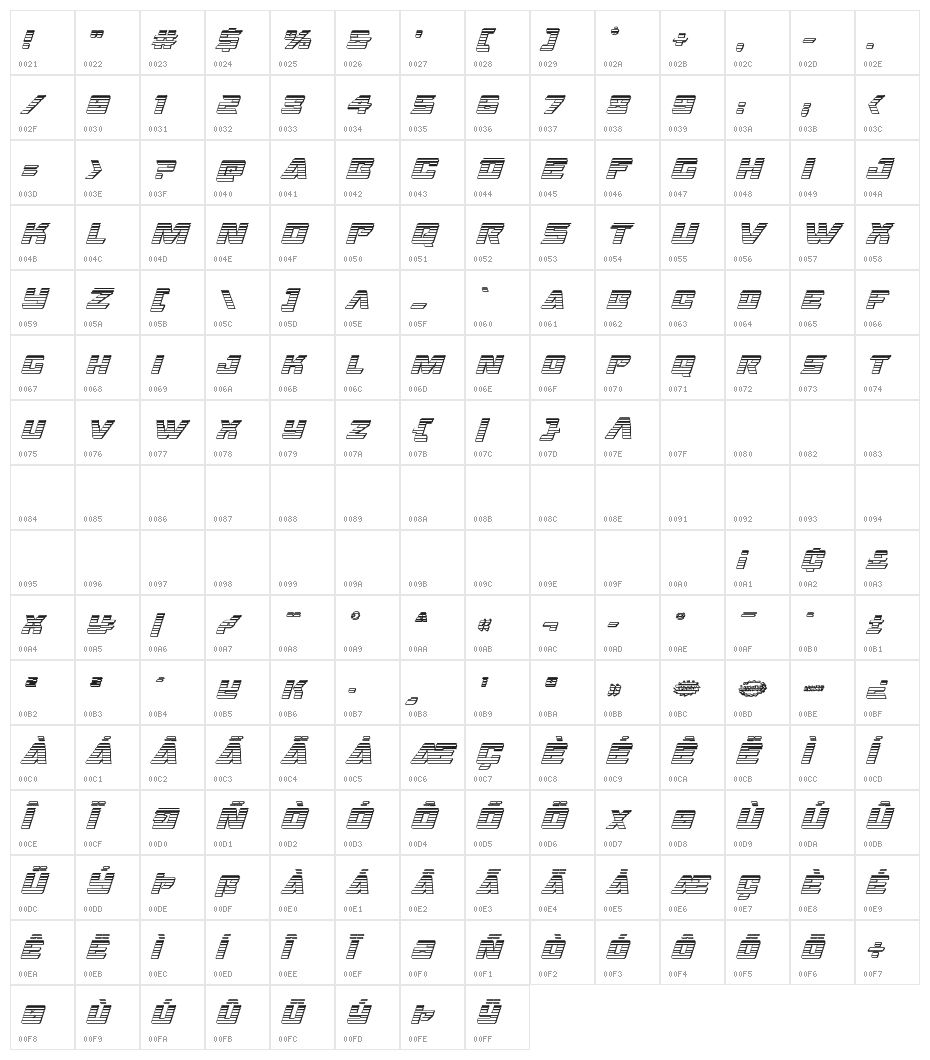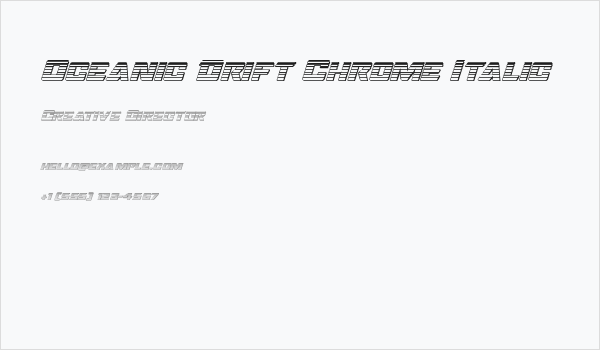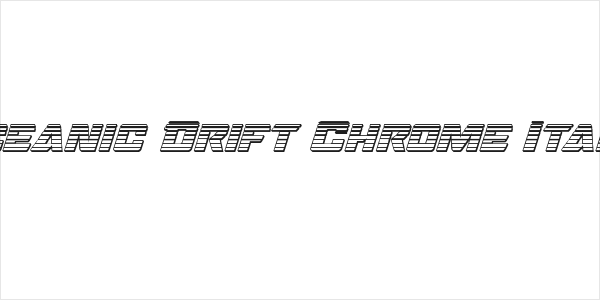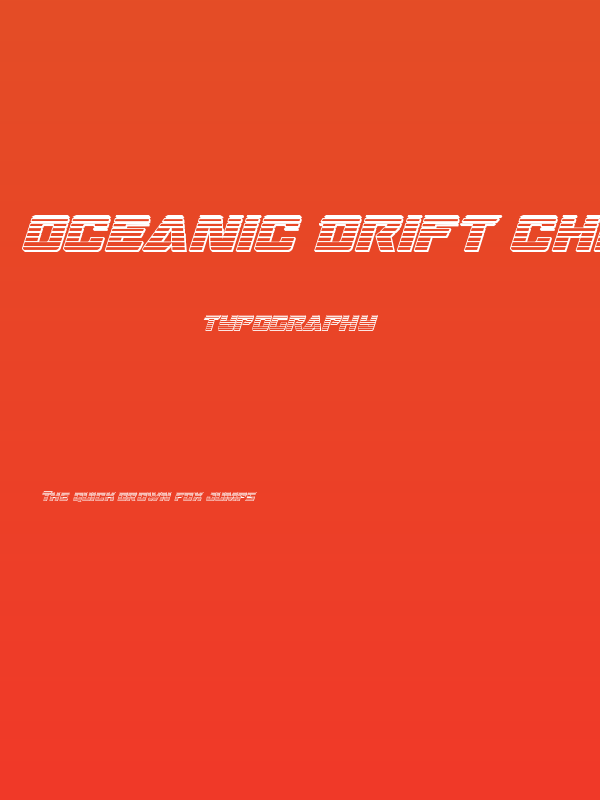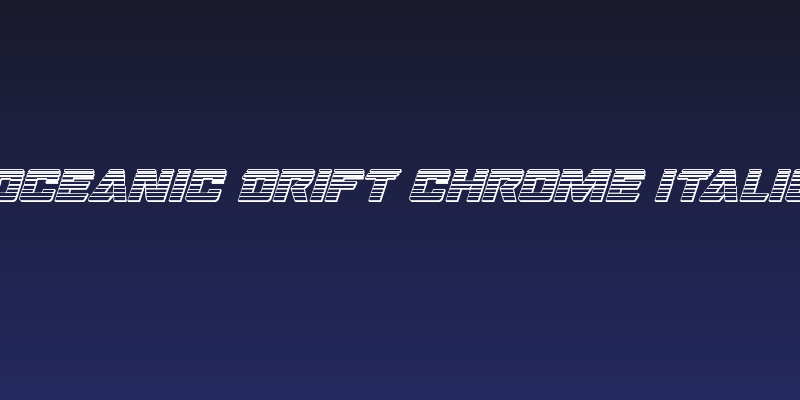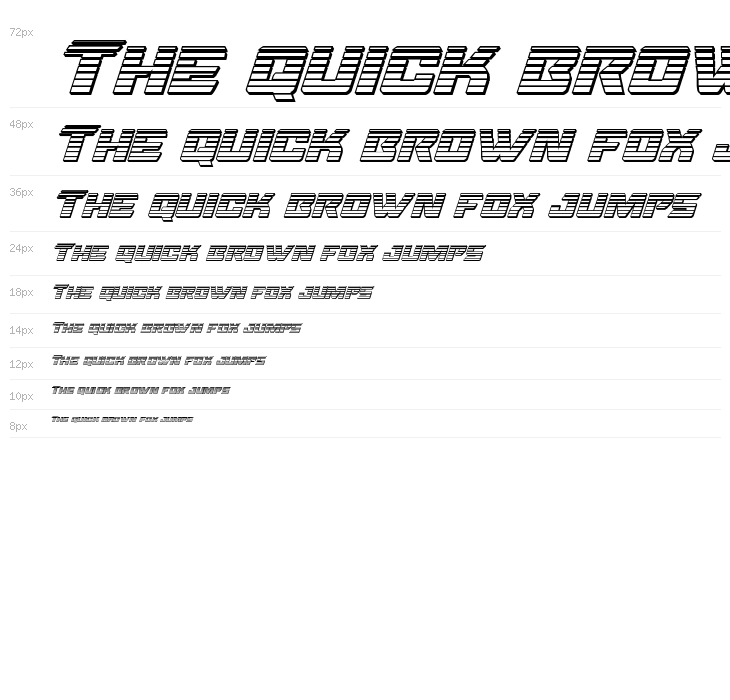
Oceanic Drift Chrome Italic Font
Oceanic Drift Chrome Italic Description
This font exhibits a bold, futuristic style with a distinct chrome-like appearance. The letters are outlined with multiple parallel lines, creating a sense of depth and movement. The italic slant adds a dynamic and forward-leaning aspect, enhancing its modern and sleek aesthetic. The characters are uniformly spaced, maintaining a consistent rhythm across the text. This font is particularly eye-catching and suitable for projects that require a standout, tech-inspired look.
| Proposed Projects | Ideal for tech-related branding, futuristic posters, video game titles, and sci-fi themed projects. |